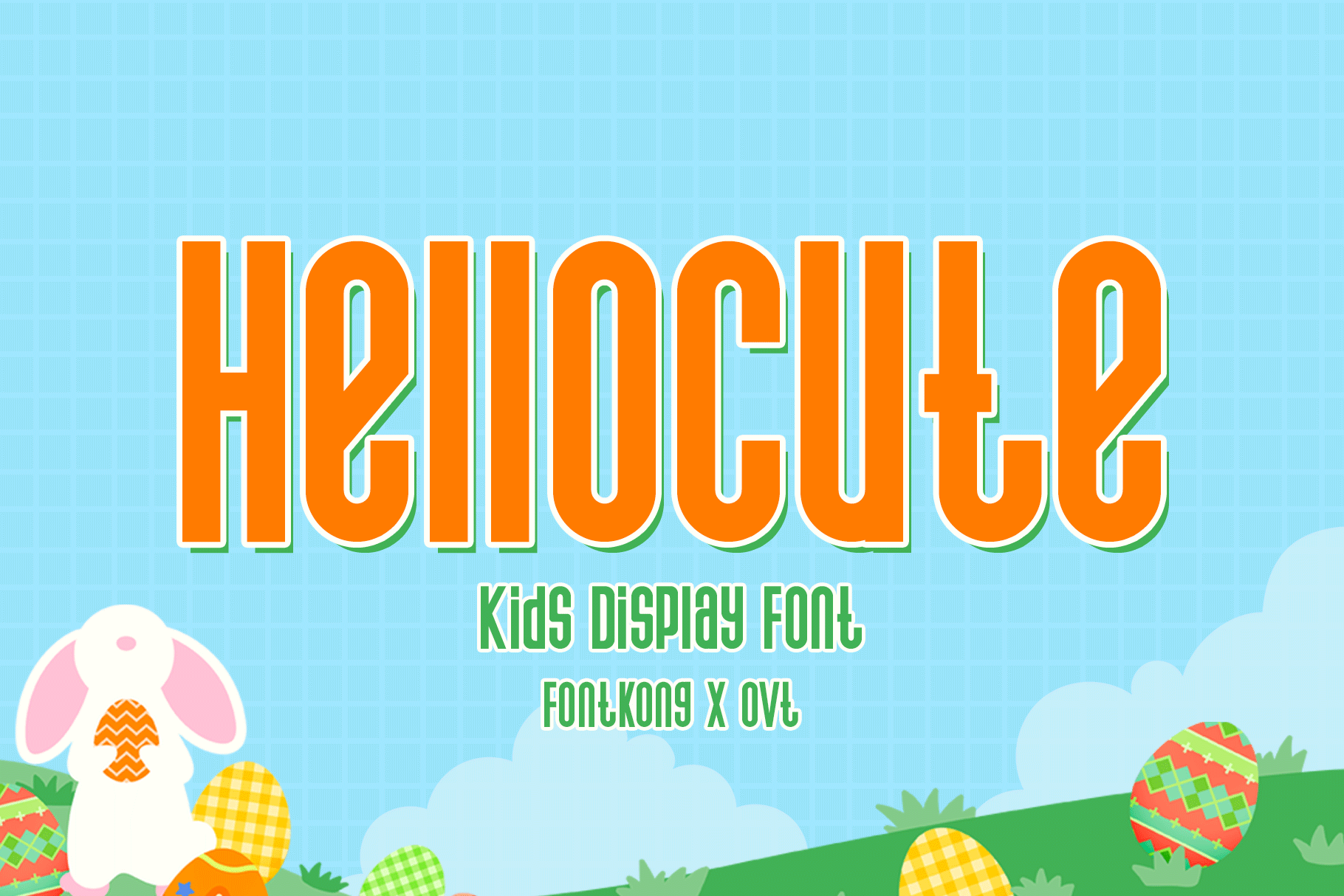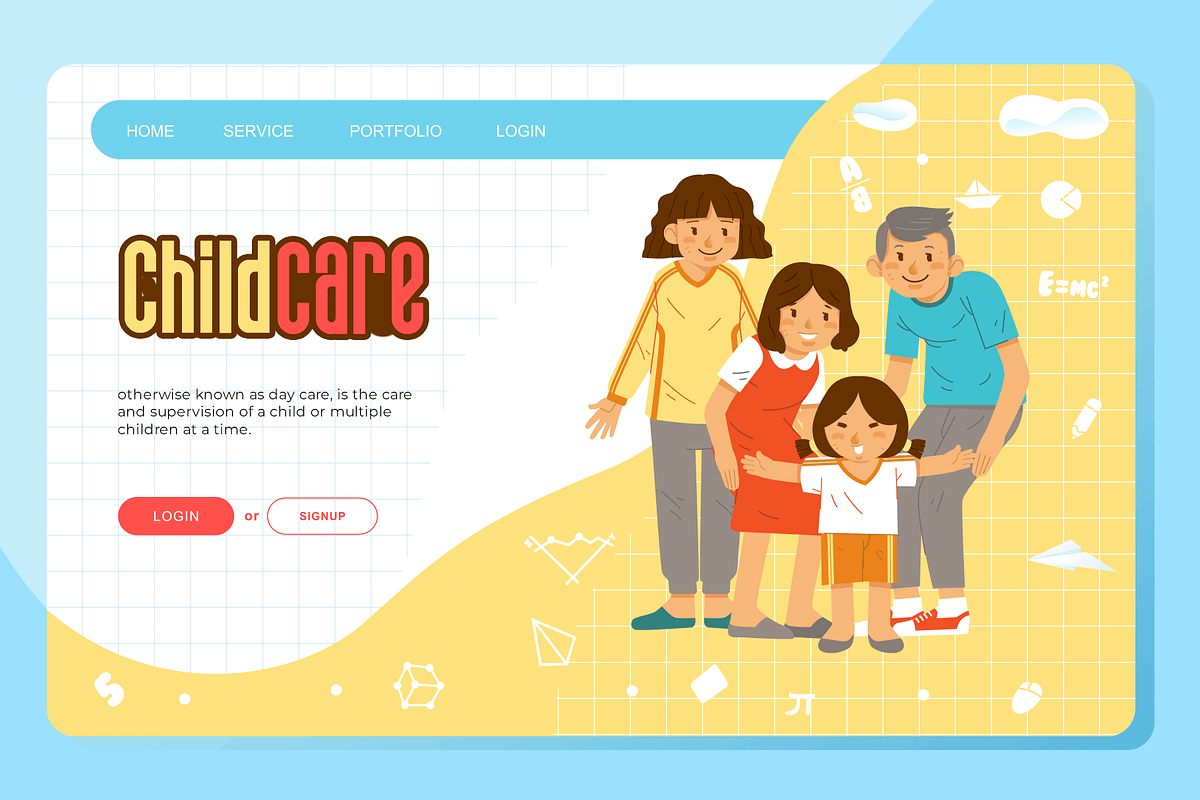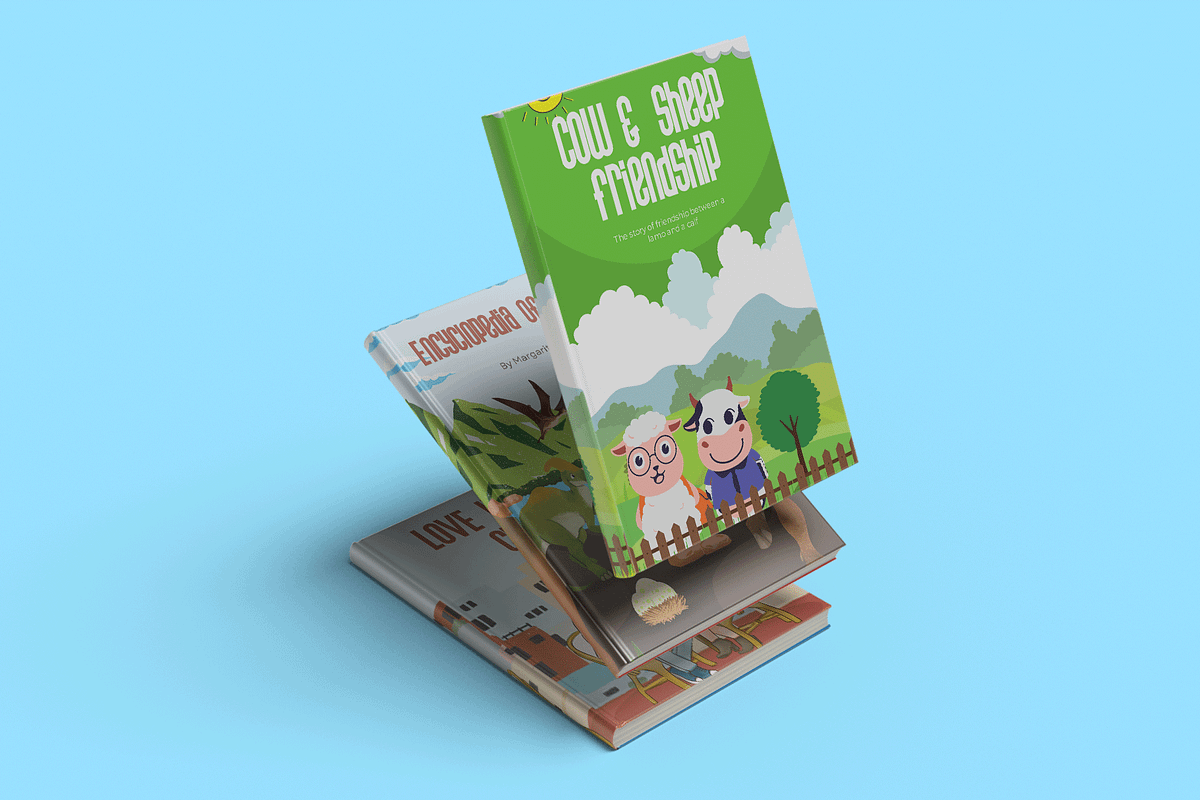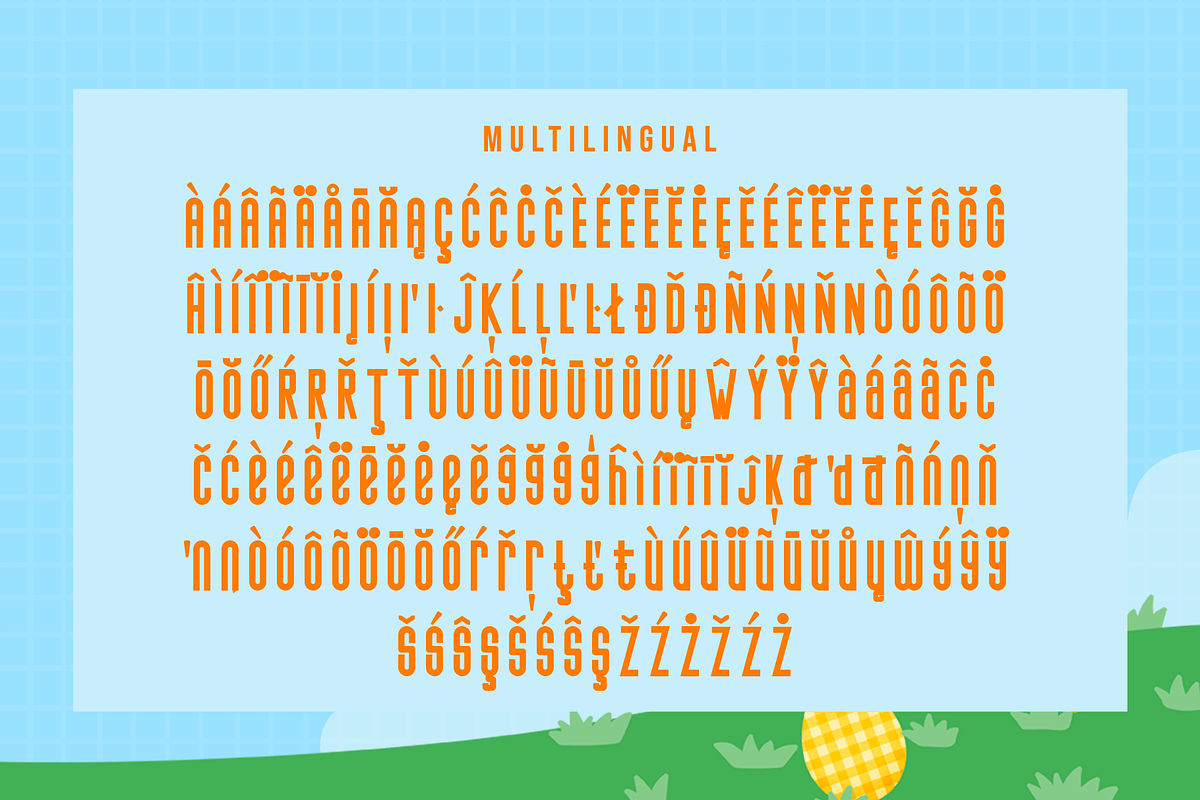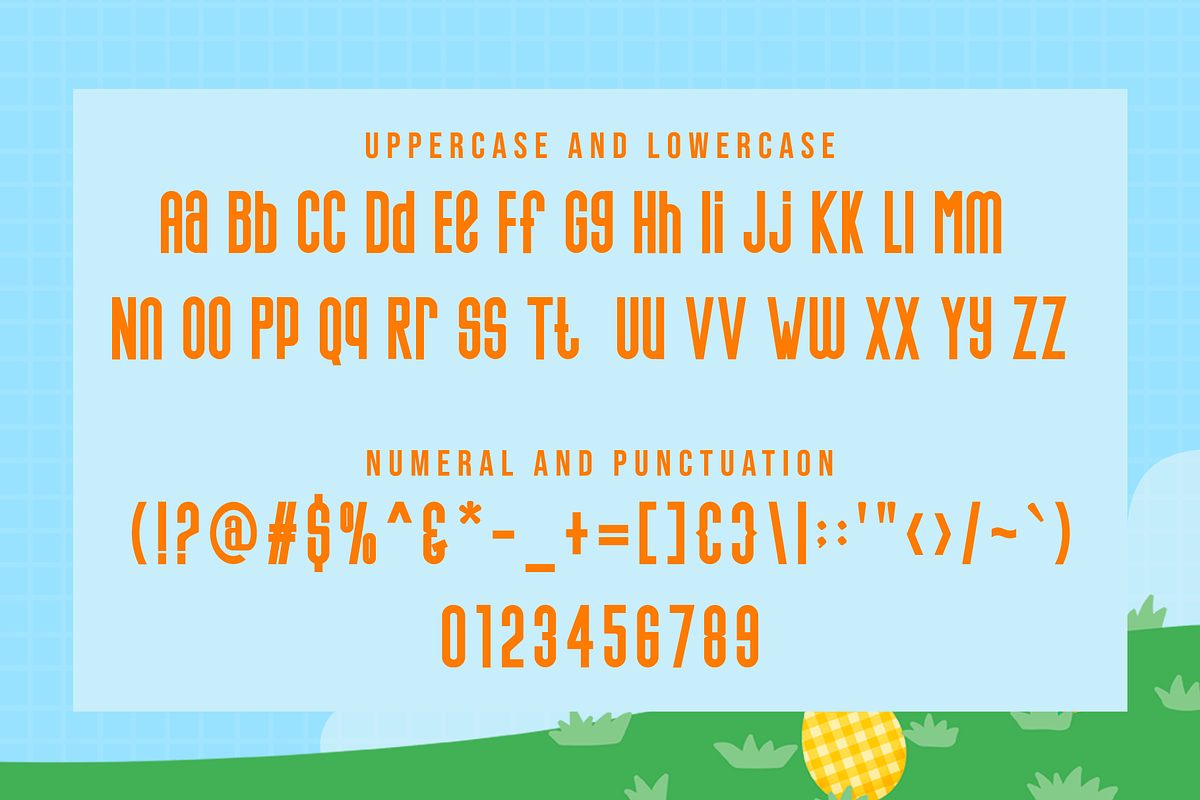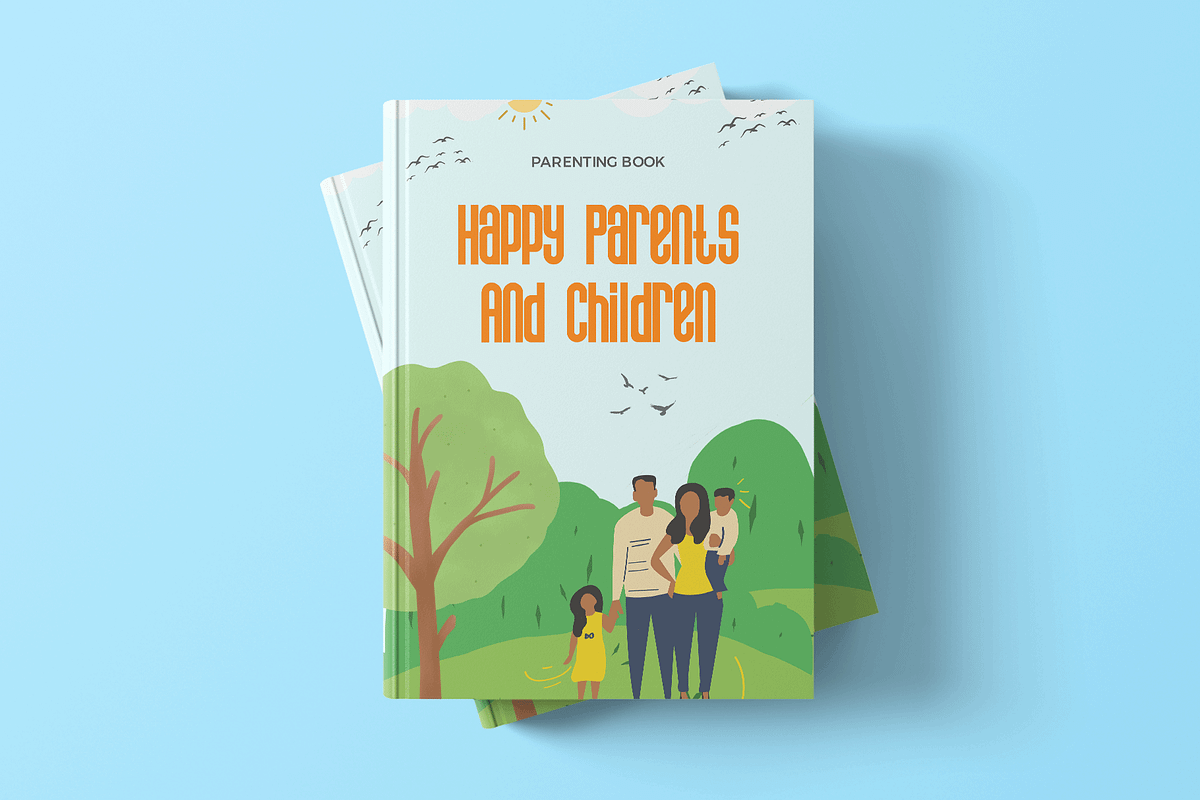
Hellocute - Kids Display Font
Meet "Hellocute," a delightful kids display font that brings playful charm and vibrant energy to your design projects. Perfect for graphic designers, illustrators, and creatives looking to capture the joyful essence of childhood, Hellocute offers a fun and engaging aesthetic that’s perfect for any kid-centered design.
Ideal for children's books, posters, toy packaging, birthday invitations, logos, and educational materials, Hellocute’s whimsical and bubbly characters add a sense of fun and excitement. Each letter is thoughtfully designed to ensure easy readability while maintaining a lively and cheerful appearance, making your designs stand out with a happy and inviting vibe.
The "Hellocute" font includes a full set of uppercase and lowercase letters, numbers, punctuation marks, and special characters. This versatile set allows for seamless integration into various design applications, from playful branding to colorful editorial layouts.
Bring joy to your designs with Hellocute, the kids display font that embodies playful charm in every letter.